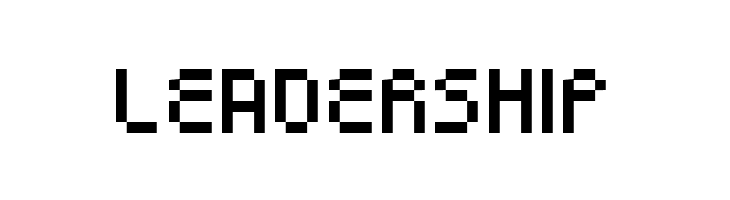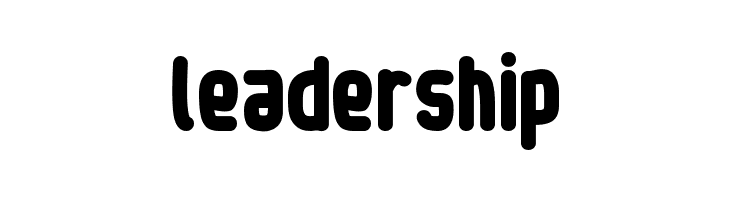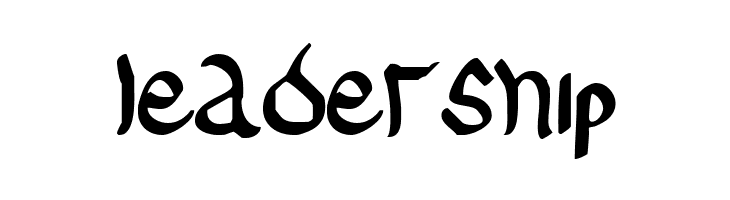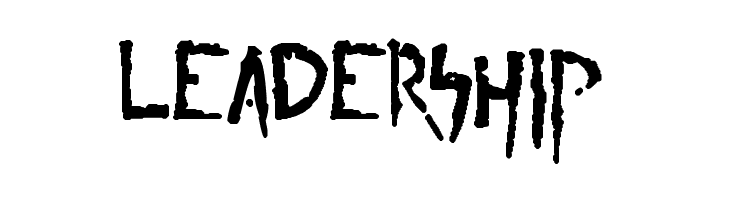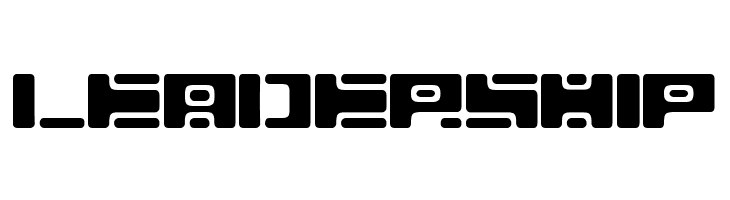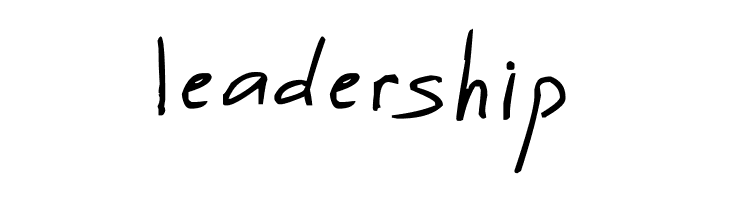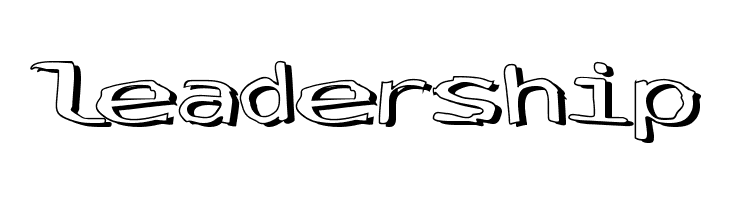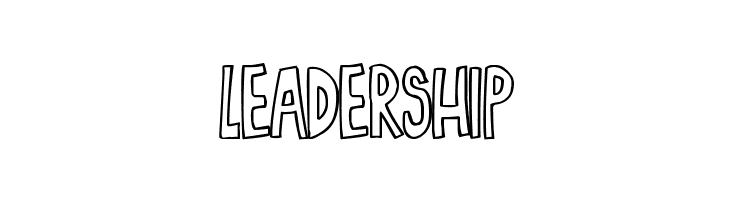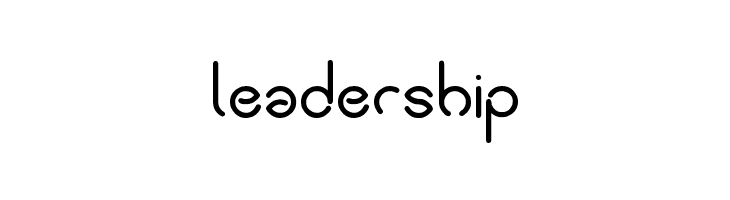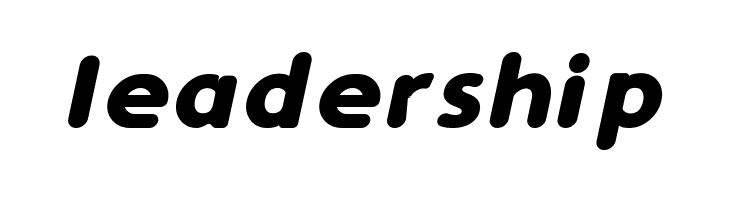
A playful, handwritten font with a modern and approachable style.
A playful, handwritten font with tall, narrow letters and a casual style.
A modern, rounded font with clean lines and even spacing.
A playful, handwritten font with irregular strokes and a casual style.
A bold, playful font with a hand-drawn, casual style.
A playful, hand-drawn outline font with a whimsical and casual style.
A textured, hand-drawn font with a distressed and artistic style.
An elegant, flowing script font with a handwritten appearance.
Hand-drawn, playful symbol font with hearts and cartoon faces.
A pixelated, monospaced font with a retro digital style.
A bold, intricate Blackletter-style font with ornate details.
A bold, gothic blackletter font with intricate, decorative elements.
A decorative blackletter font with ornate and intricate designs.
A playful, handwritten font with smooth, rounded edges and a casual style.
A playful, handwritten font with a casual and dynamic style.
A modern, rounded sans-serif font with a clean and friendly style.
A bold, rounded typeface with smooth curves and a friendly appearance.
A bold, rounded, and italic font with a friendly and dynamic style.
A modern, rounded italic font with a friendly and approachable style.
A playful, hand-drawn font with bold outlines and a casual style.
A casual, handwritten font with an informal and playful style.
A bold, geometric font with a futuristic, digital aesthetic.
A playful, hand-drawn font with bold, uneven strokes and a whimsical charm.
A bold, geometric font with a futuristic, digital style.
A bold, jagged, and distressed decorative font with a chaotic and intense style.
A bold, playful font with rounded edges and a whimsical style.
A playful, artistic handwritten font with dynamic strokes and a whimsical style.
A bold, geometric font with strong, block-like characters and modern flair.
A bold, rounded font with a playful and friendly style.
A bold, hand-drawn font with a playful and energetic style.
A playful, hand-drawn font with a bold, cartoonish style.